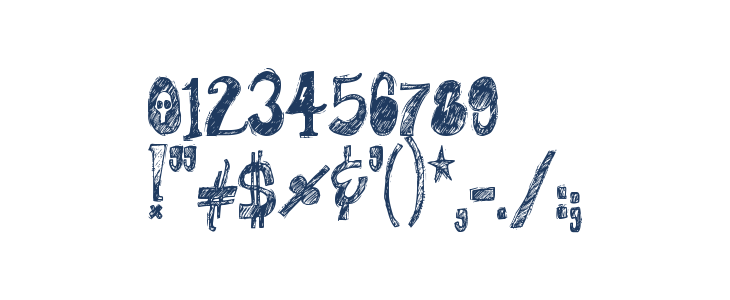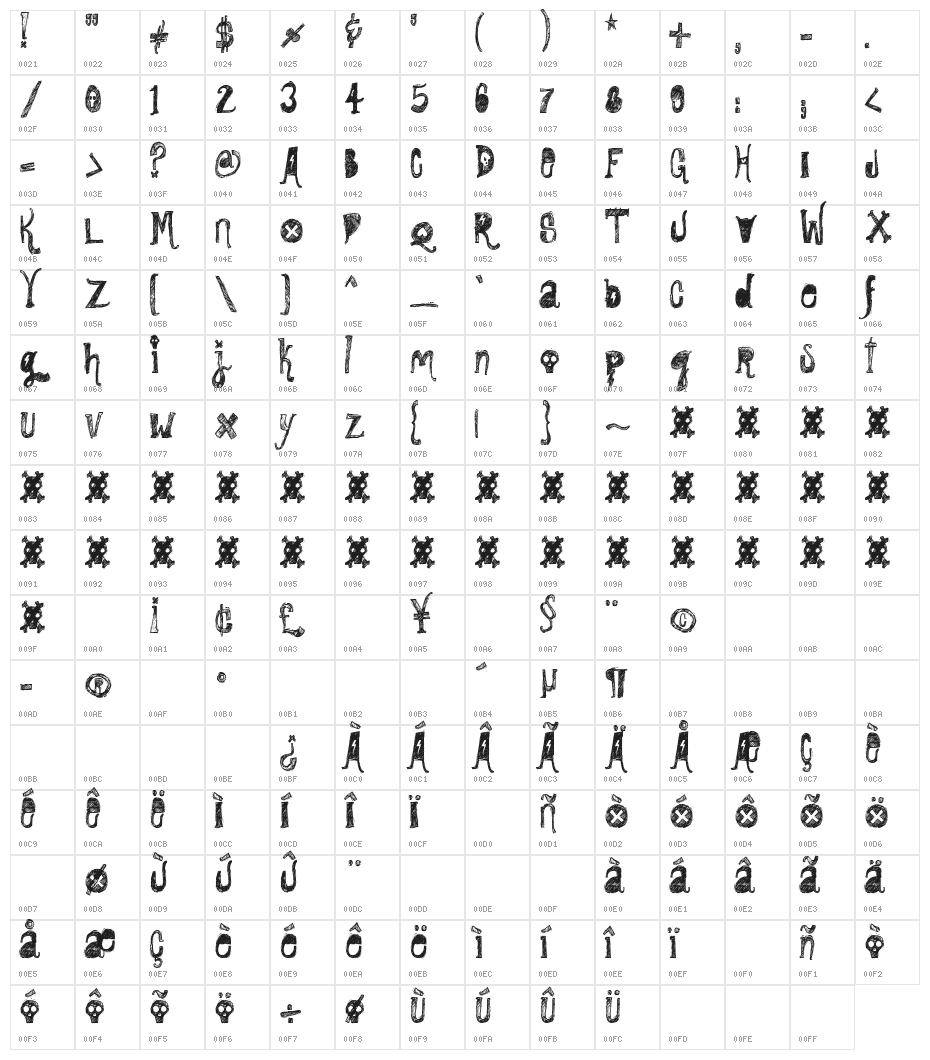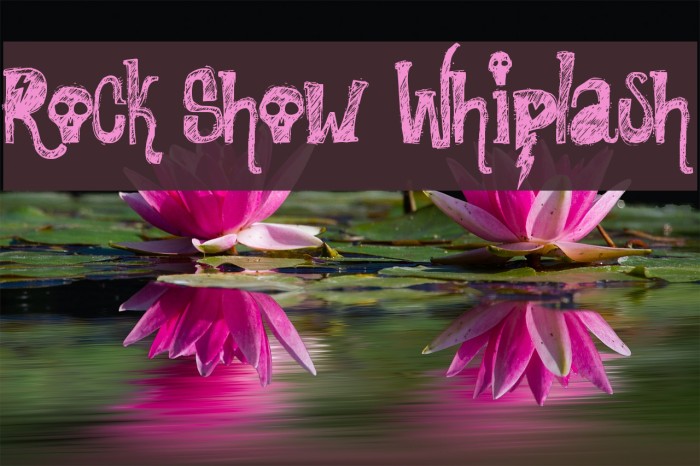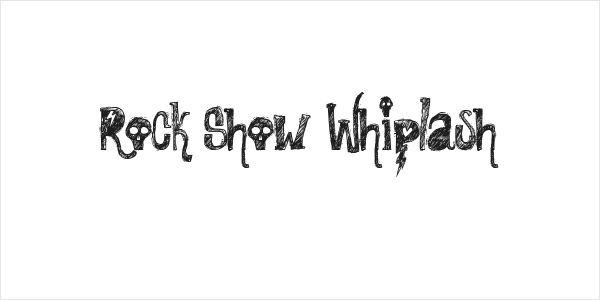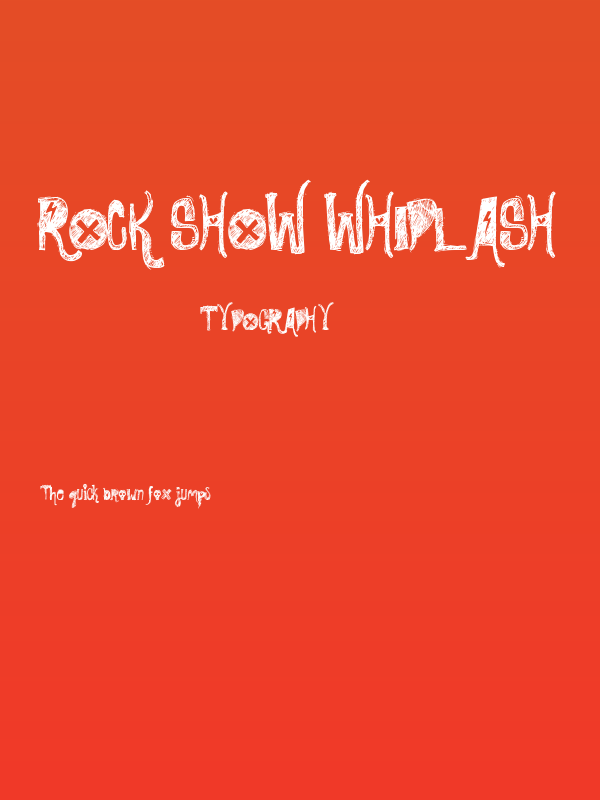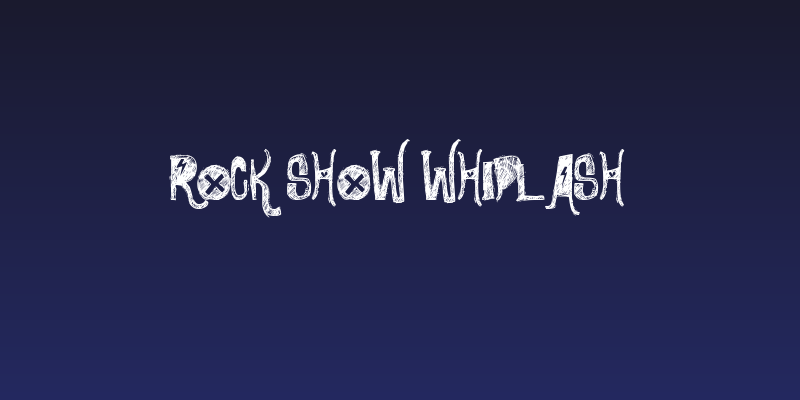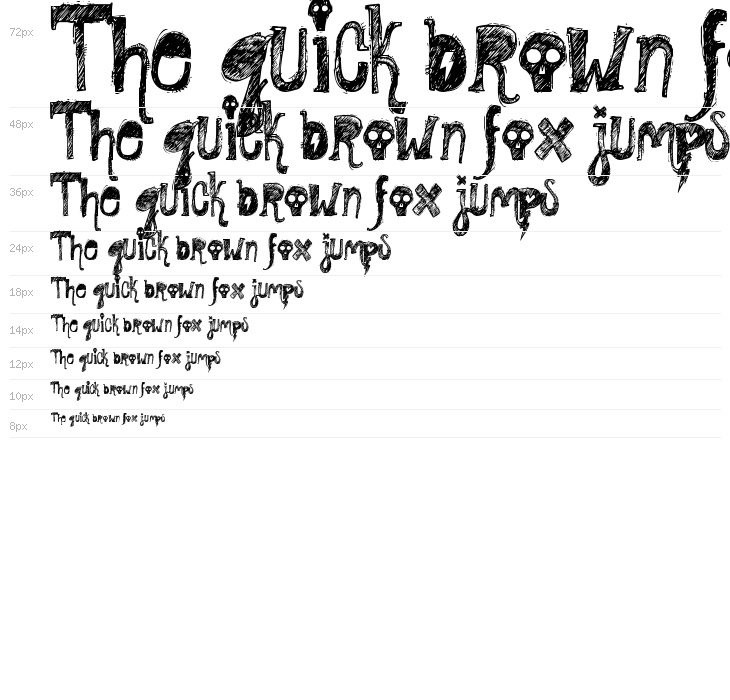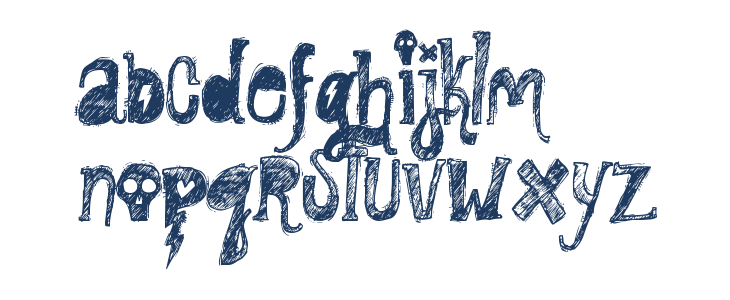
Rock Show Whiplash Font
Rock Show Whiplash Description
This font exudes a rebellious and edgy vibe, characterized by its hand-drawn, sketch-like appearance. Each letter is uniquely crafted with rough, uneven strokes, giving it a raw and energetic feel. The uppercase letters feature bold, exaggerated forms with playful elements like skulls and crossbones, while the lowercase letters maintain a consistent, yet equally dynamic style. Numbers and special characters follow the same aesthetic, adding to the font's cohesive look. The overall design is reminiscent of rock and punk themes, making it perfect for projects that require a bold, unconventional statement.
| Proposed Projects | Ideal for music album covers, band posters, edgy branding, and event flyers. |